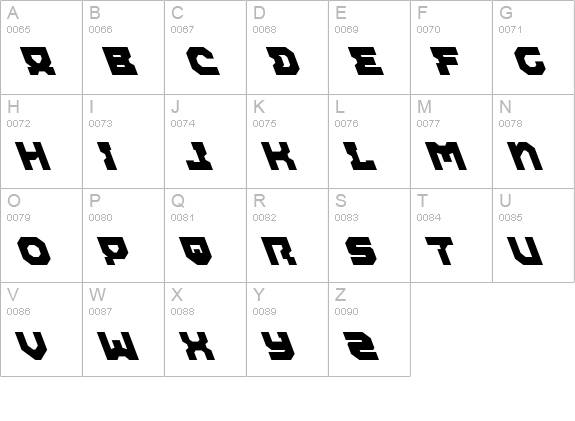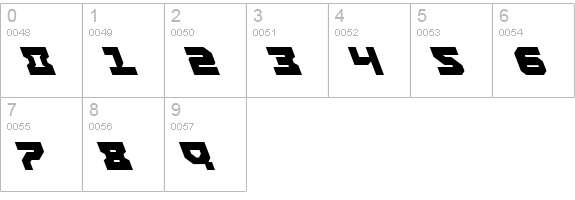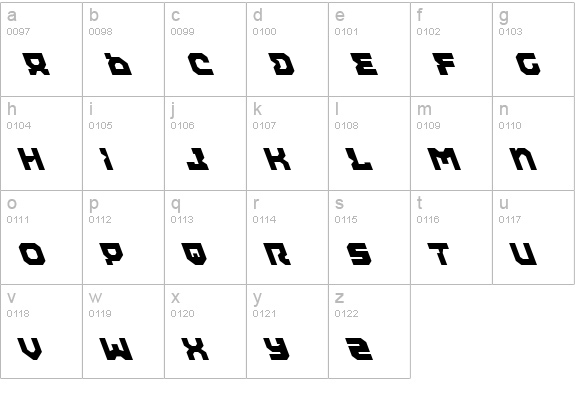
Airacobra Leftalic font is a sleek and modern typeface that exudes elegance and sophistication. Its sharp angles and stylish curves give it a unique and eye-catching look that is perfect for adding a touch of flair to any design project. The italic style adds a sense of movement and dynamism to the text, making it ideal for use in headings, logos, and other prominent design elements. What sets Airacobra Leftalic font apart is that it is available for free download at FontsMarket.com, making it accessible to designers and creatives of all levels. Whether you're working on a personal project or a professional design, this font is sure to elevate your work and make a lasting impression. Don't miss out on the opportunity to enhance your designs with the Airacobra Leftalic font - download it for free today at FontsMarket.com and take your creative projects to the next level!